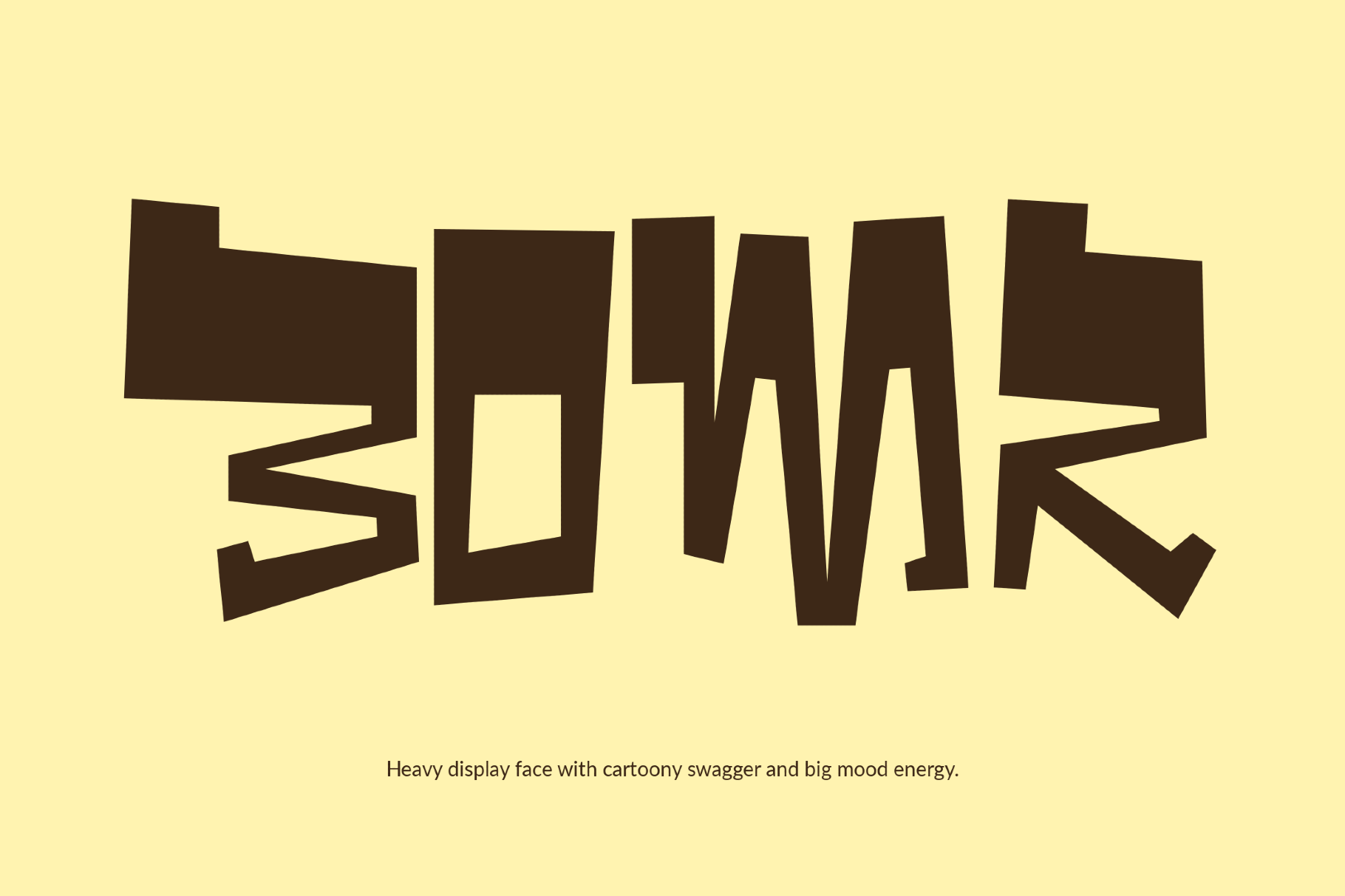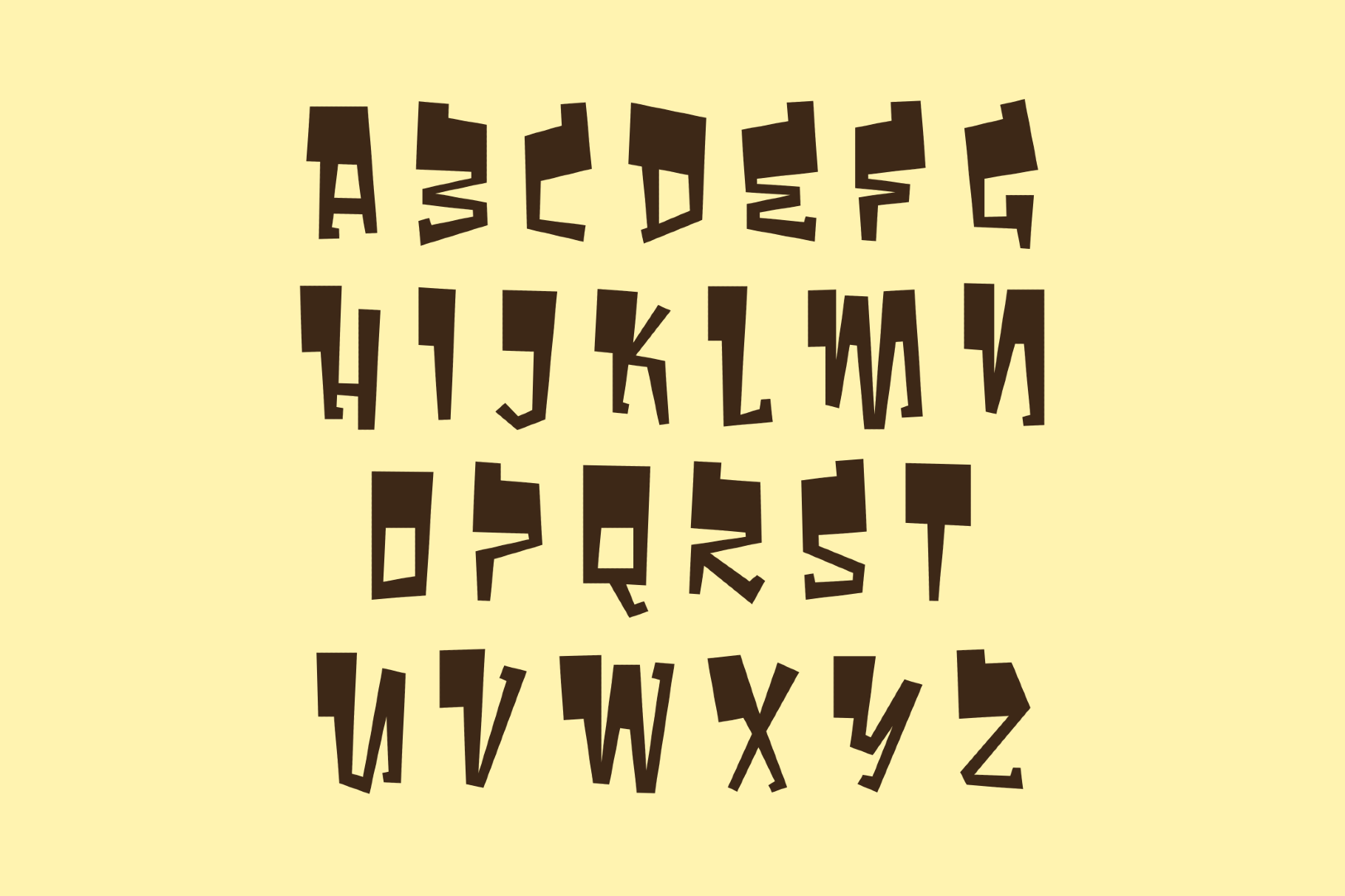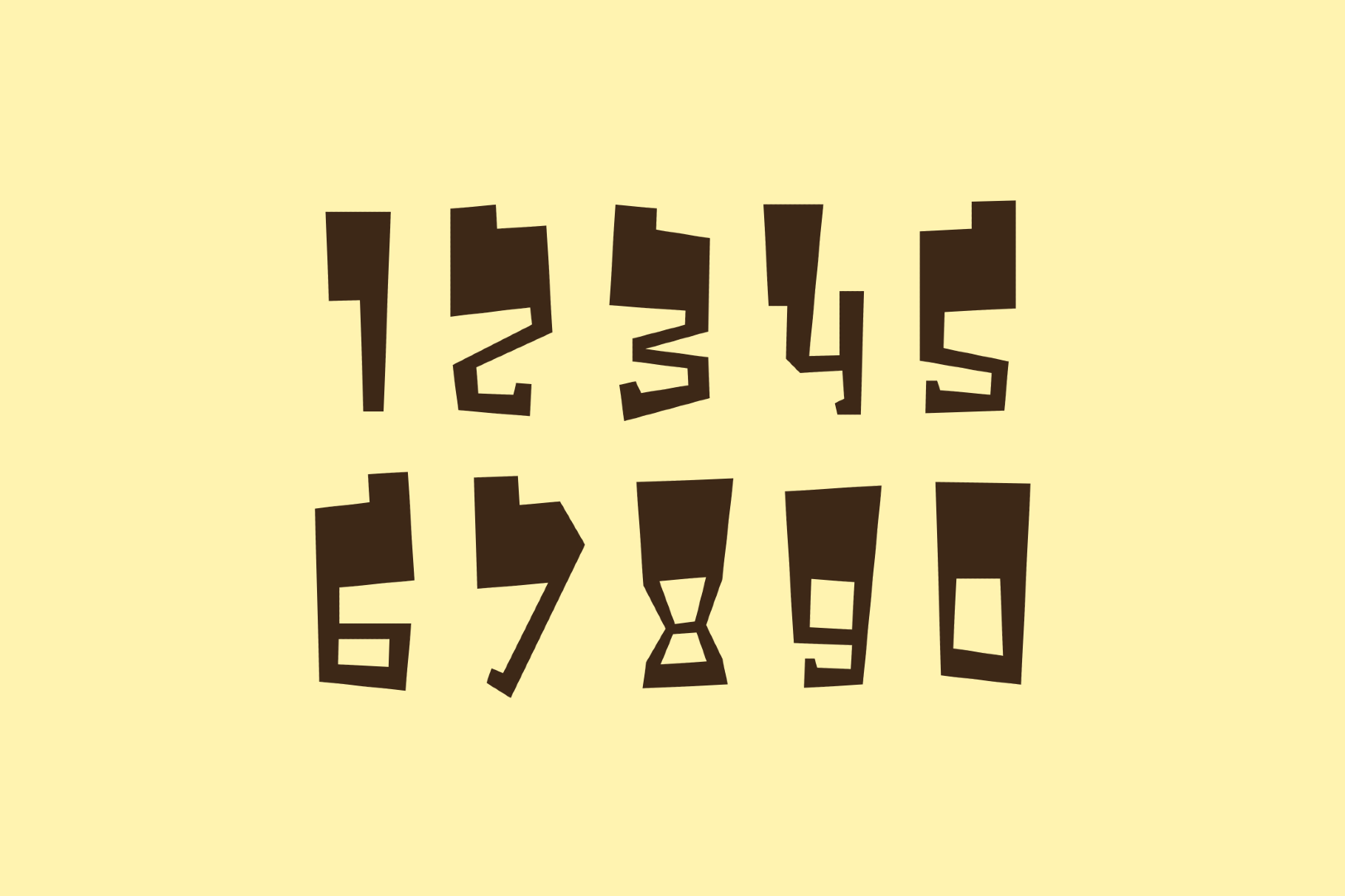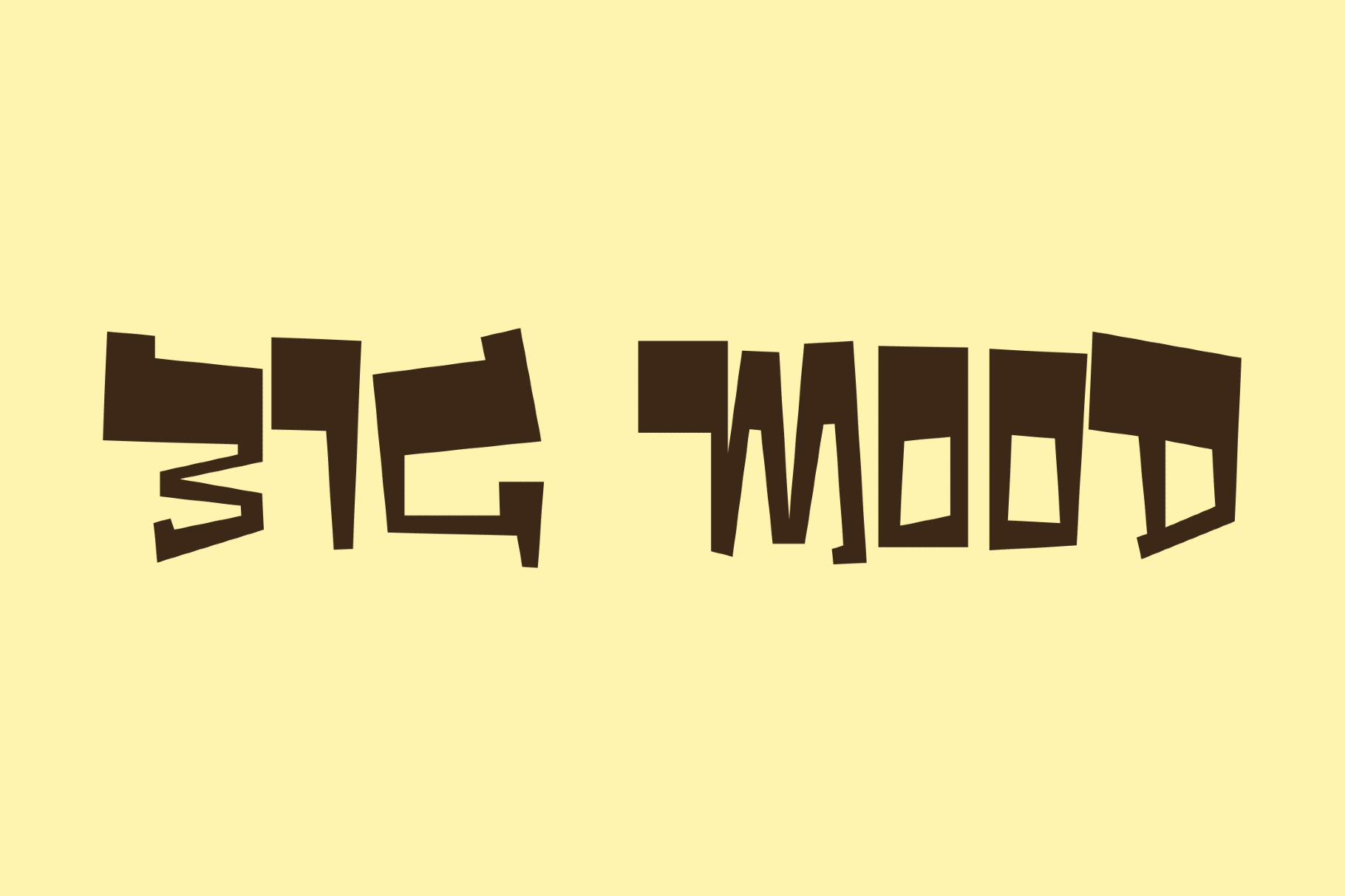
Bombr - Funny Street Font
Bomr
Bomr is a cut-paper funny dispaly font with jagged geometric forms and a totemic, handmade rhythm. It recalls mid-century collage posters, folk craft signage and cardboard stencil graphics. It works for poster headlines, packaging, album covers, editorial titles, logo design, exhibition graphics and branding.